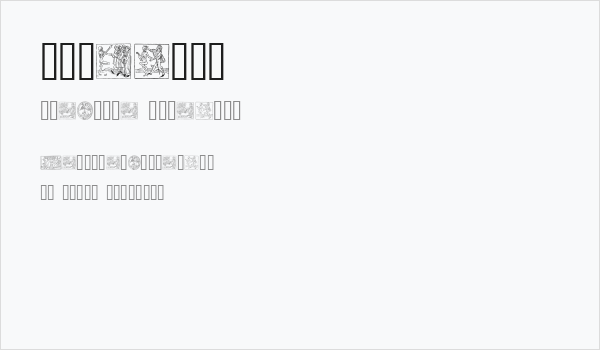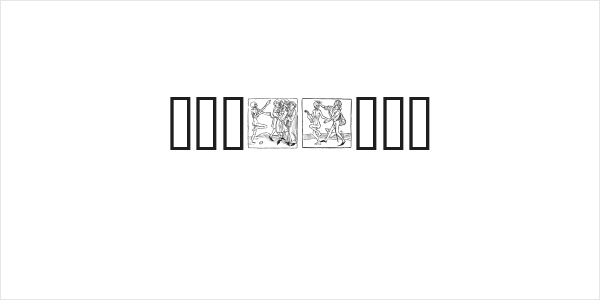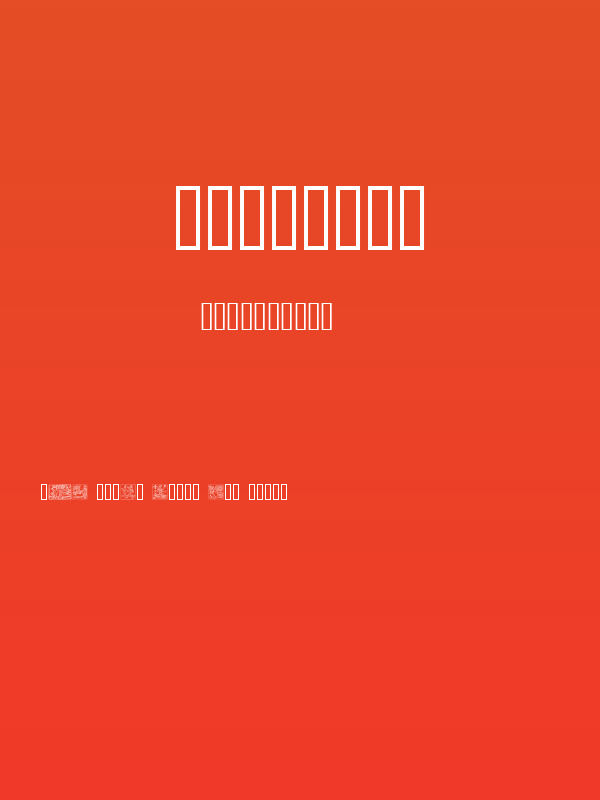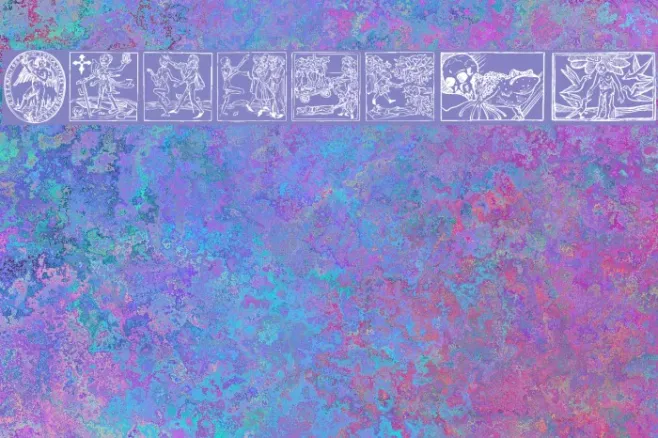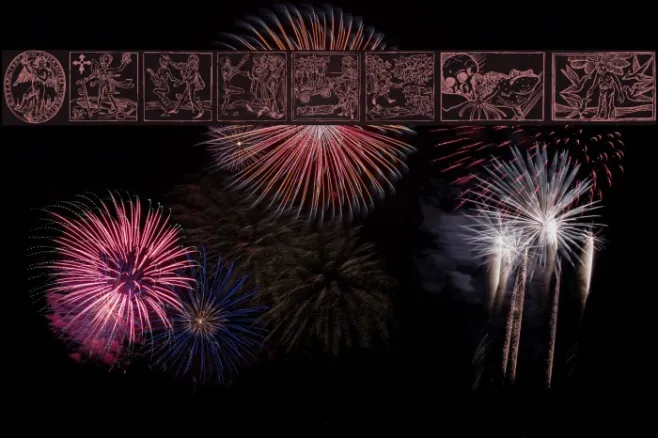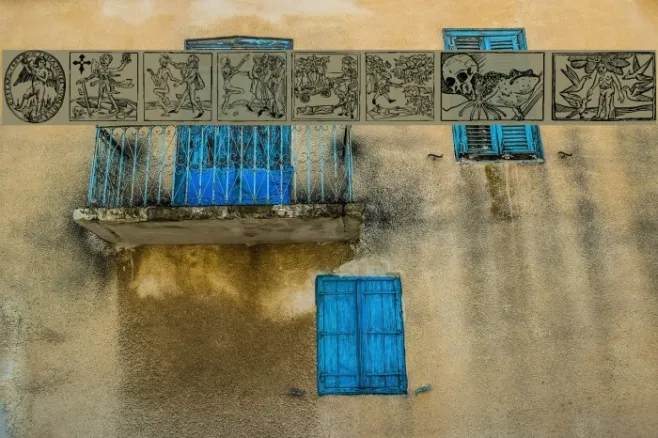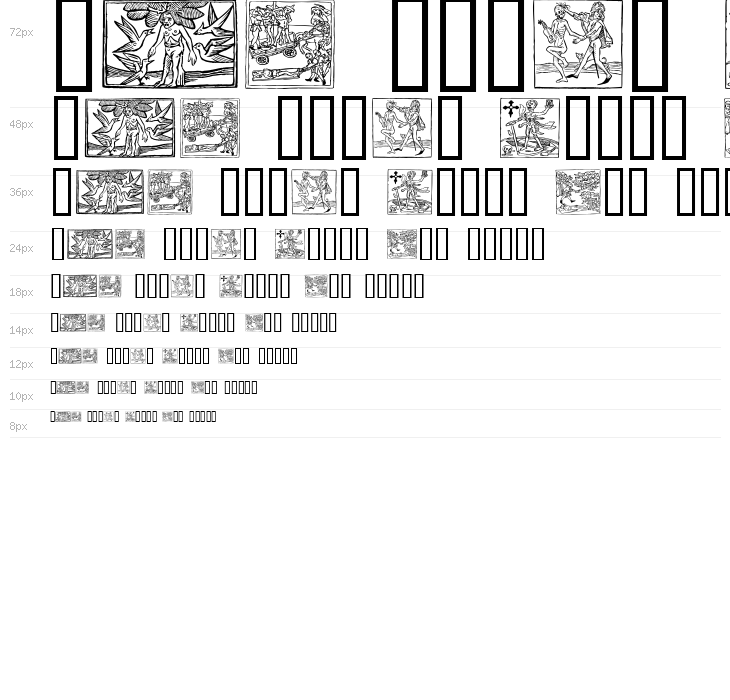
Woodcut2 Font
Woodcut2 Description
This is not a valid font. The image contains decorative illustrations resembling woodcut art rather than a traditional typeface. The characters are represented by intricate designs and scenes, which are not suitable for standard text representation. The style is highly decorative, focusing on artistic expression rather than legibility or typographic functionality.
| Use Case | Artistic illustrations, decorative elements. |
| Proposed Projects | Artistic projects, decorative prints, or thematic designs that require intricate illustrations. |